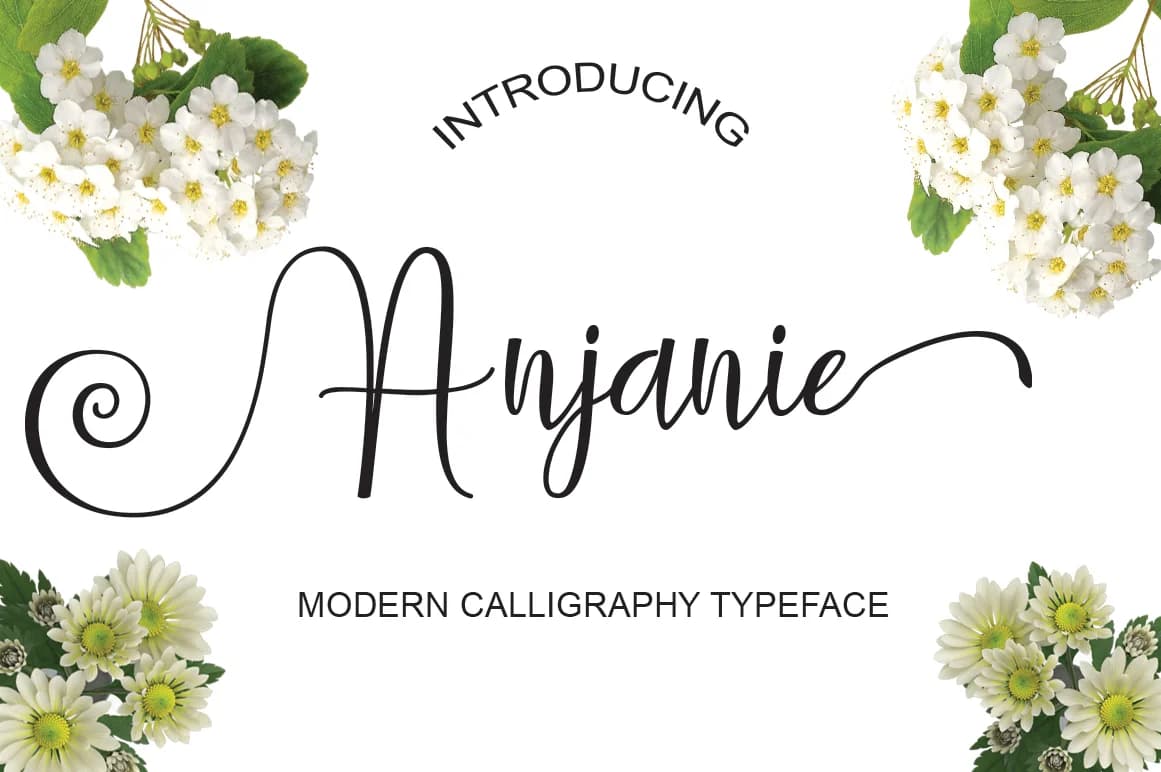
Anjanie Font by Naqsya.Co is a flowing handwritten script that brings an organic, human touch to digital design projects. With its natural letterforms and graceful curves, this typeface captures the warmth of authentic hand-lettering while remaining versatile for contemporary applications.
This script font excels in creating memorable first impressions across a range of creative projects. It's particularly suited for wedding invitation suites, where its flowing lines add elegance to ceremony details and RSVP cards. The natural variations in the letterforms make it equally effective for boutique skincare packaging, offering a crafted feel that appeals to consumers seeking artisanal brands. Designers frequently employ Anjanie for greeting card designs, where the informal yet refined character helps personalize messages of congratulations, thank you, and celebration. The font also works beautifully for DIY craft signs and handmade product labels, particularly in creative niches where authenticity and personality matter most.
Whether you're designing intimate stationery collections, launching a personal brand with creative flair, or producing packaging and signage that demands genuine character, Anjanie Font delivers the hand-lettered aesthetic without requiring actual calligraphy expertise. Its accessible charm works across both print and digital mediums, making it a practical choice for projects that need warmth and personality. Get Anjanie Font on Creative Fabrica to add authentic handwritten charm to your next creative project.
Anjanie Font is a script font that shines as a display or heading face. Pair it with a clean sans-serif or serif font for body text β the contrast creates a clear hierarchy while the two styles stay balanced and easy to read.
Anjanie Font